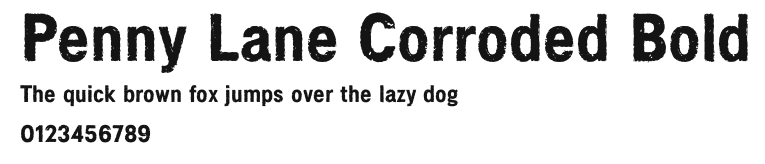
• Font Name: Penny Lane Corroded Bold
• Copyright: ©2014 K-Type • PENNY LANE is a sans serif derived from twentieth-century cast-iron signs displaying Liverpool street names. Although the lettering used for these vintage signs varies in width and style, this semi-condensed sans is fairly typical.
• Designer: Keith Bates
• Manufacturer: K-Type
• Description: The waist of letters like X and Y are positioned on the midline so may appear unusually high, the G is without a crossbar, and pointed characters like the Z might seem at odds with generally grotesque letter shapes.